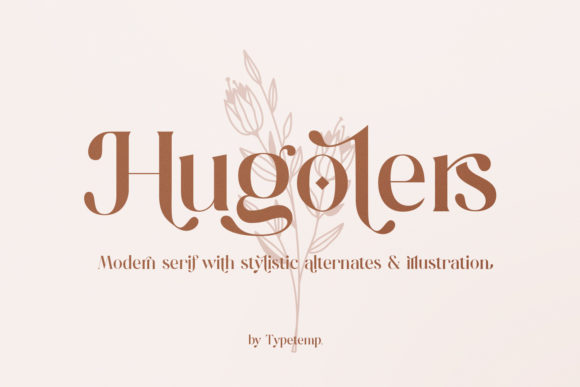
Unleash the elegance and charm of Hugolers, a captivating serif font family that breathes life into your creative visions. Designed with meticulous attention to detail, Hugolers is more than just a font; it's an artistic masterpiece that elevates your designs to new heights.
From the delicate curves of its letterforms to the subtle flourishes that adorn its characters, Hugolers exudes an aura of sophistication and timeless beauty. Its carefully crafted glyphs dance harmoniously across the page, creating an aesthetic that is both visually striking and eminently readable.
Born from the creative mind of TempCraft, Hugolers is a font that embodies artistry and functionality. Its versatility knows no bounds, making it the perfect choice for a wide array of design projects, from wedding invitations and branding materials to logos and social media graphics.
With Hugolers, your words take on a life of their own, captivating your audience with their eloquence and grace. Its timeless appeal ensures that your messages will resonate with readers, leaving a lasting impression that lingers long after the page is turned or the screen fades to black.
Immerse yourself in the world of Hugolers and discover a font that effortlessly blends elegance, charm, and versatility. Whether you're a seasoned designer or just starting your creative journey, Hugolers is the font that will ignite your imagination and transform your designs into works of art.
Step into a world of typographic wonder with Hugolers, where beauty and functionality collide to create a font that will redefine your design possibilities. Experience the magic of Hugolers today and see your creative dreams come to life.